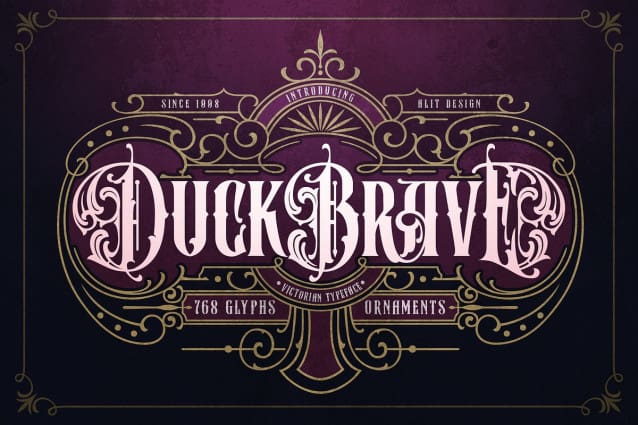
Duck Brave Font
Duck Brave Font: This meticulously crafted typeface captures the spirit of Victorian aesthetics with intricate details, making it a perfect choice for designs that demand sophistication and classic appeal. From ornate carvings to elaborate swashes, Duck Brave is a tribute to Victorian artistry, allowing your designs to stand out with a sense of timeless beauty.